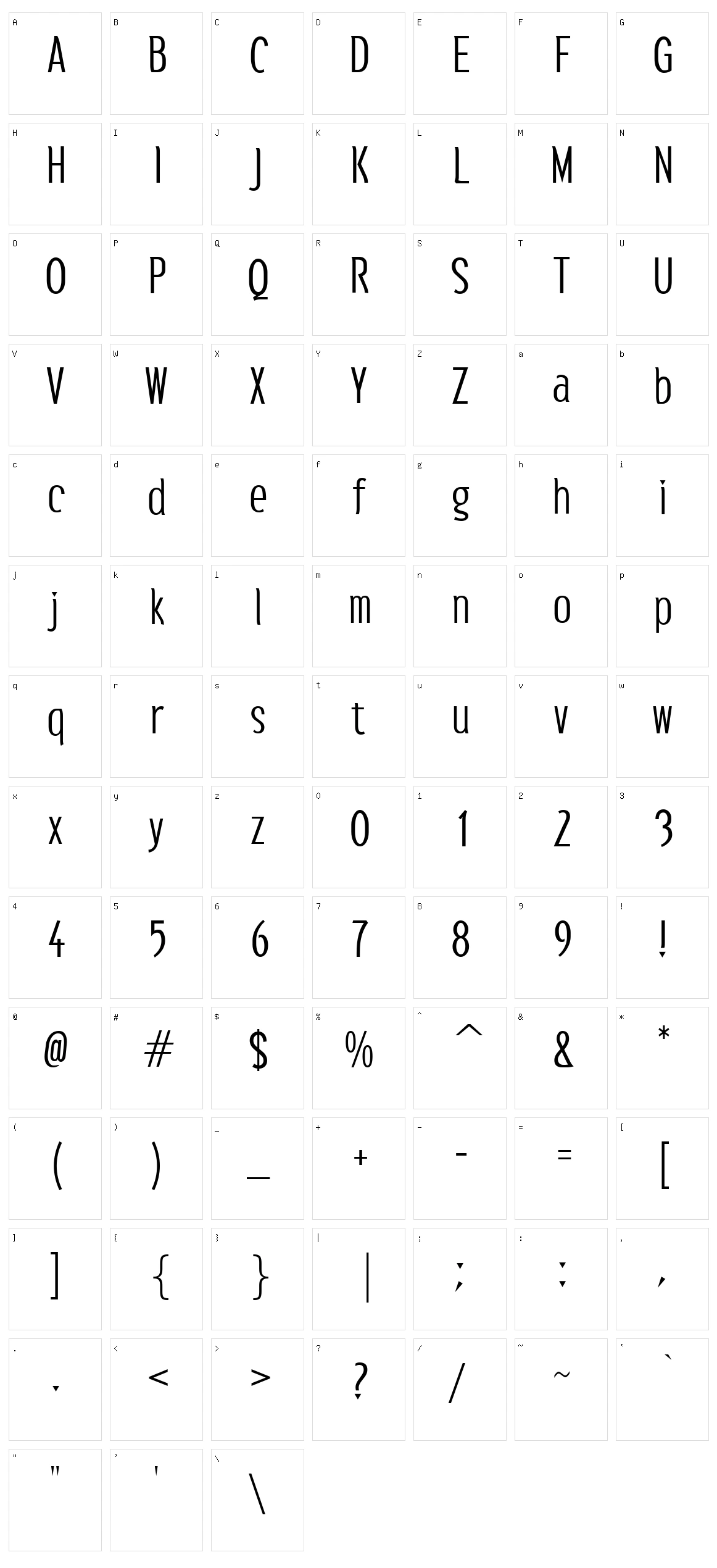
A light sans serif designed for Susanna Laknerâs â22 Daysâ mail art project. The characters were drawn on each of 22 evenings throughout November 2004. In December the drawings were scanned to create the Susanna font.